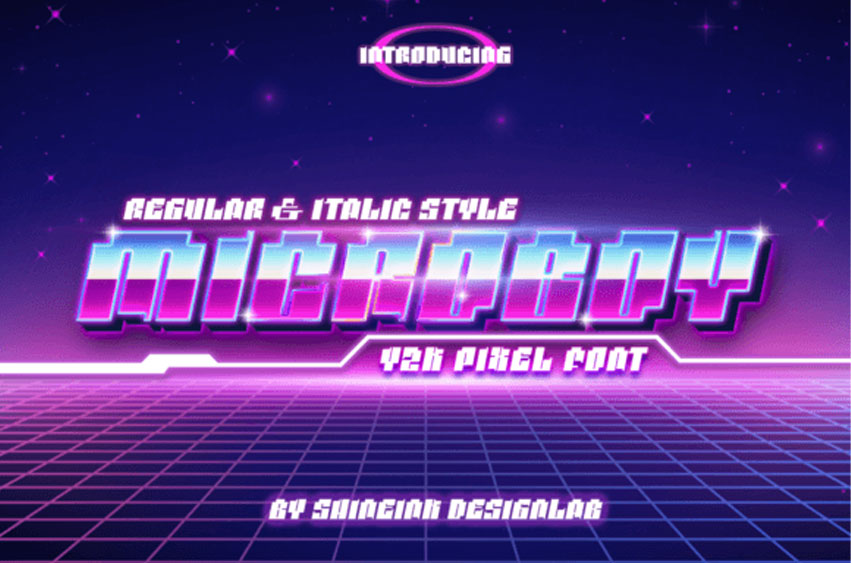
Microboy Font is a captivating blend of futuristic, pixelated, and modern design elements that perfectly suits the gaming world. With its distinct characteristics, this font transports players to a nostalgic era inspired by the turn of the millennium.
Drawing inspiration from the futuristic aesthetics of the early 2000s, the Microboy font features sleek lines, bold shapes, and a sense of high-tech sophistication. Its pixelated design pays homage to the classic video games of the past, evoking a sense of nostalgia while also embracing a modern twist.
With its modern appeal and sleek design, the Microboy font stands out among other contemporary typefaces. It merges futuristic elements seamlessly with pixel art-inspired details, resulting in a unique visual experience that resonates with both gamers and enthusiasts of modern design.
Incorporating the Microboy font into game projects creates an immersive atmosphere and enhances the overall gaming experience. Its vibrant colors and dynamic forms bring a sense of excitement, perfectly aligning with the interactive nature of gaming.
In summary, this font combines the best of futuristic aesthetics, pixel art charm, modern design sensibilities, and its inherent connection to the gaming world. With its captivating visual elements and its ability to evoke a sense of nostalgia, this font is an ideal choice for game developers, designers, and gamers alike who seek a bold and striking typographic style.